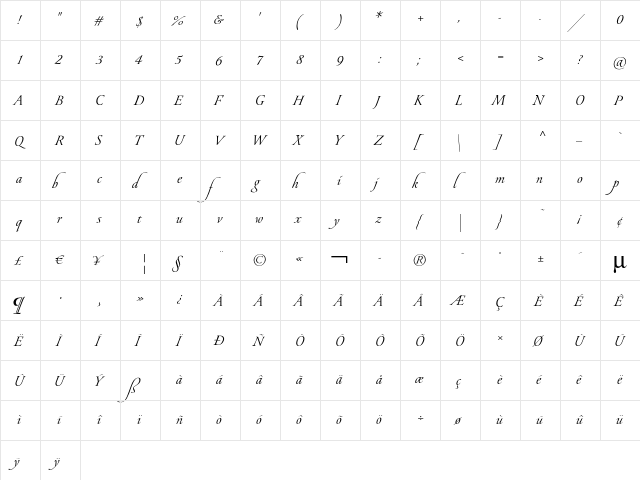
Pirouette LT Std Text
| Designer | Ryuichi Tateno |
Design Context for Pirouette LT Std Typeface
Pirouette LT Std is a composed and adaptable typeface that performs quietly and consistently across a wide range of design contexts. The delicate stroke weight brings airiness and refinement to layouts.